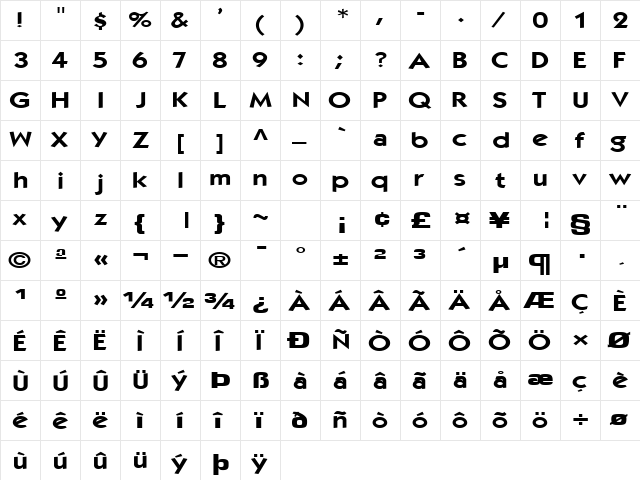
Elegance104 Regular
Design Context for Elegance104 Typeface
Elegance104 takes a measured approach to typography — its balanced proportions and neutral character make it a reliable workhorse for both digital and print work.